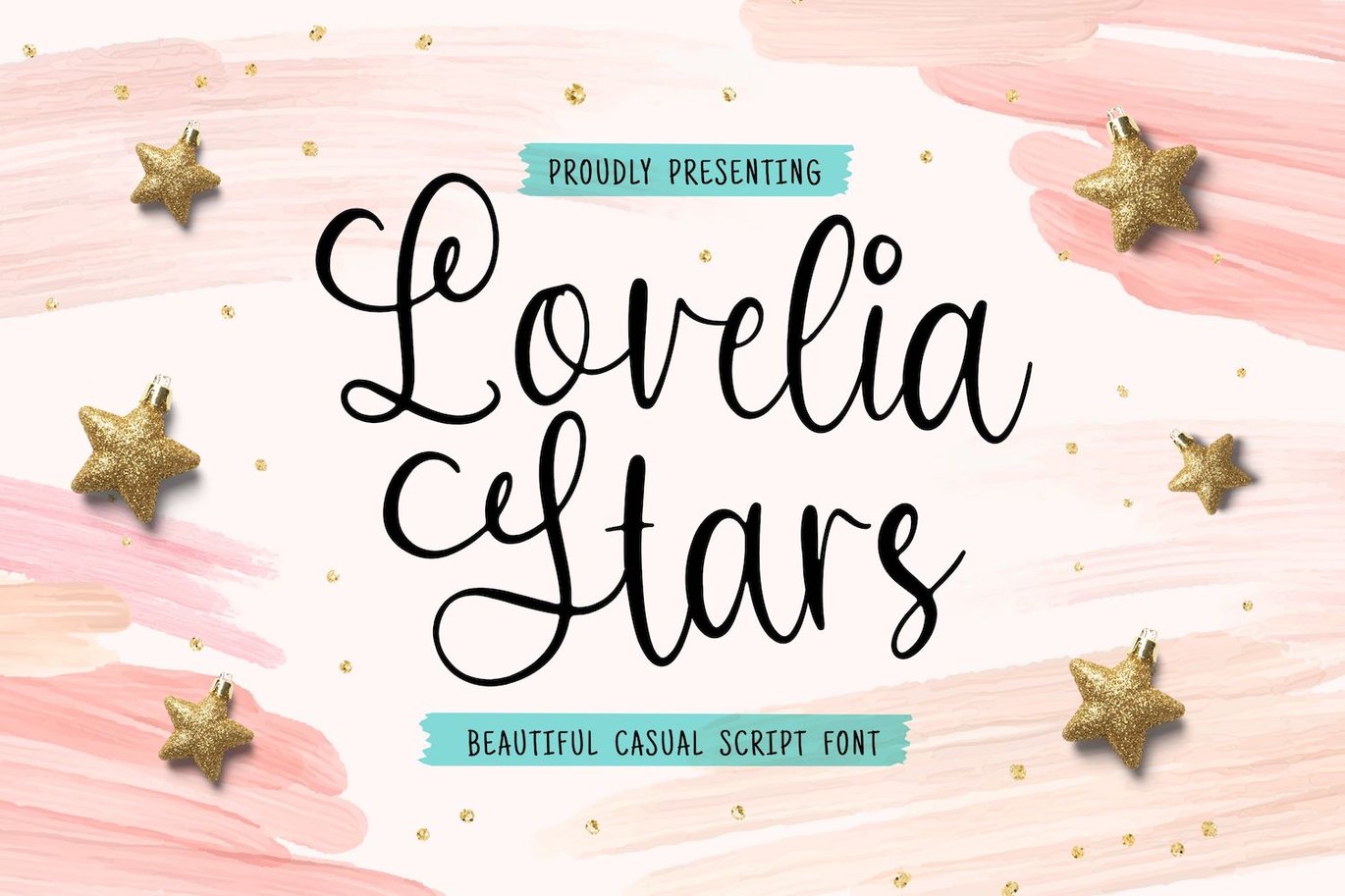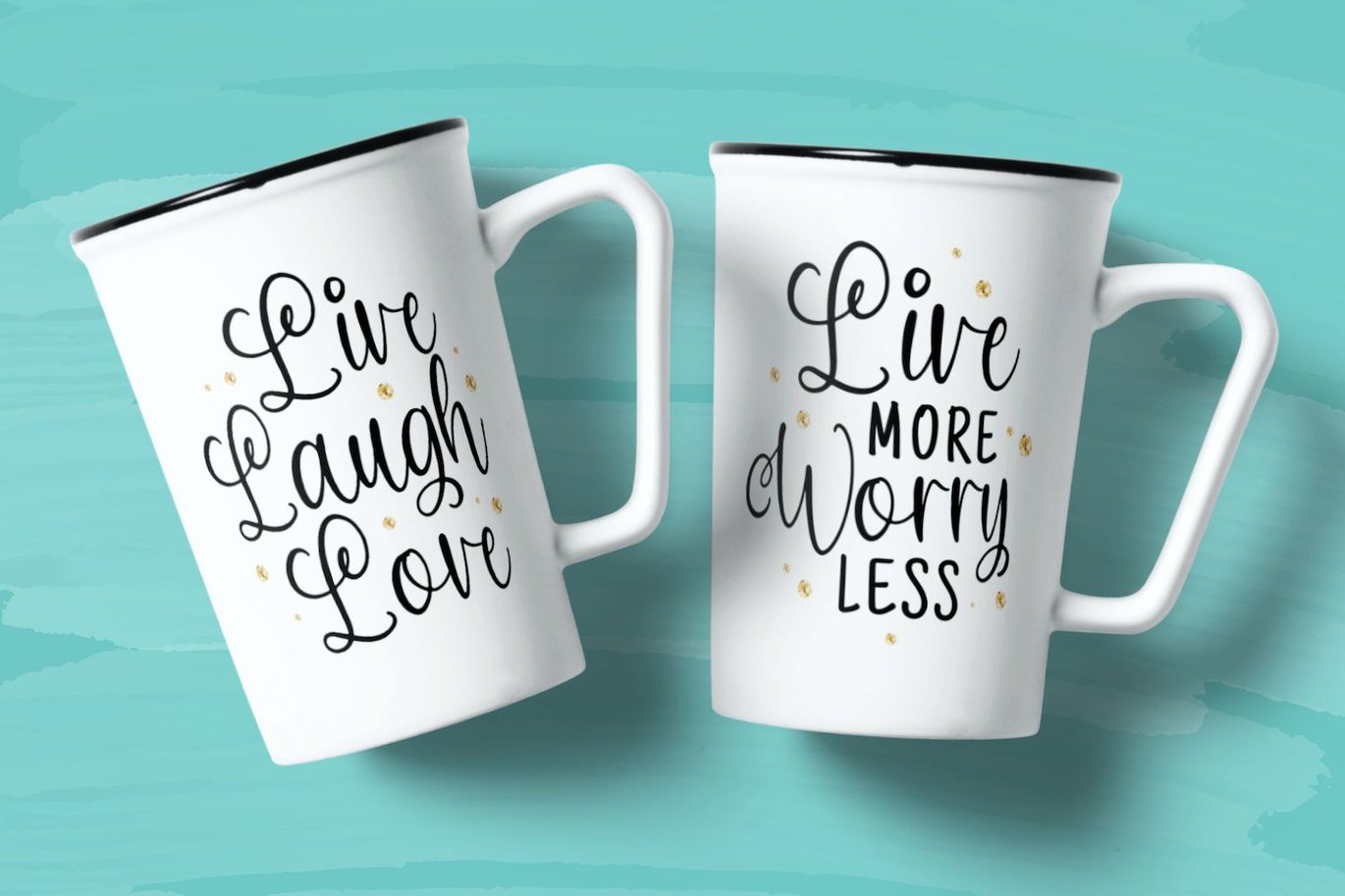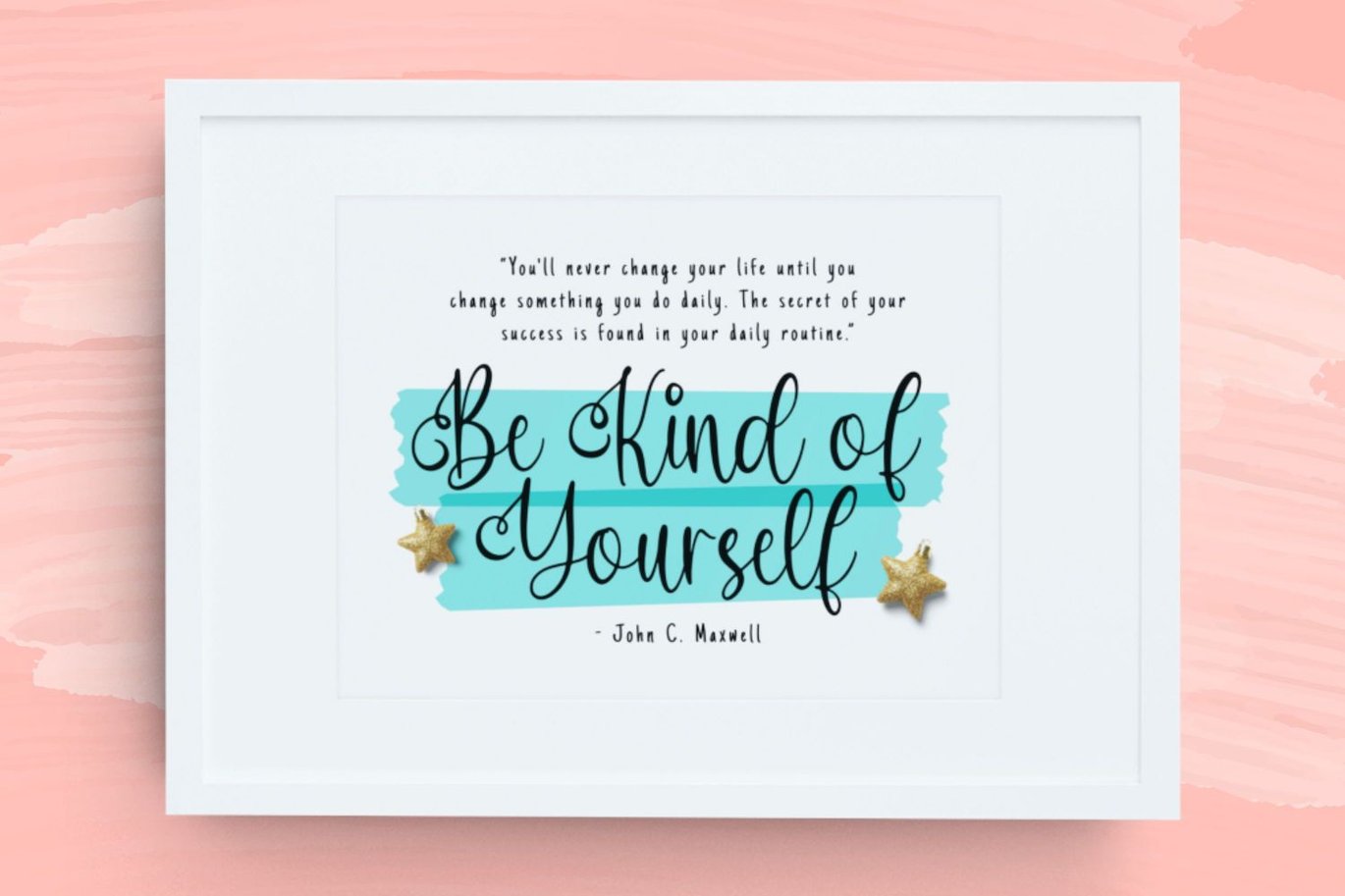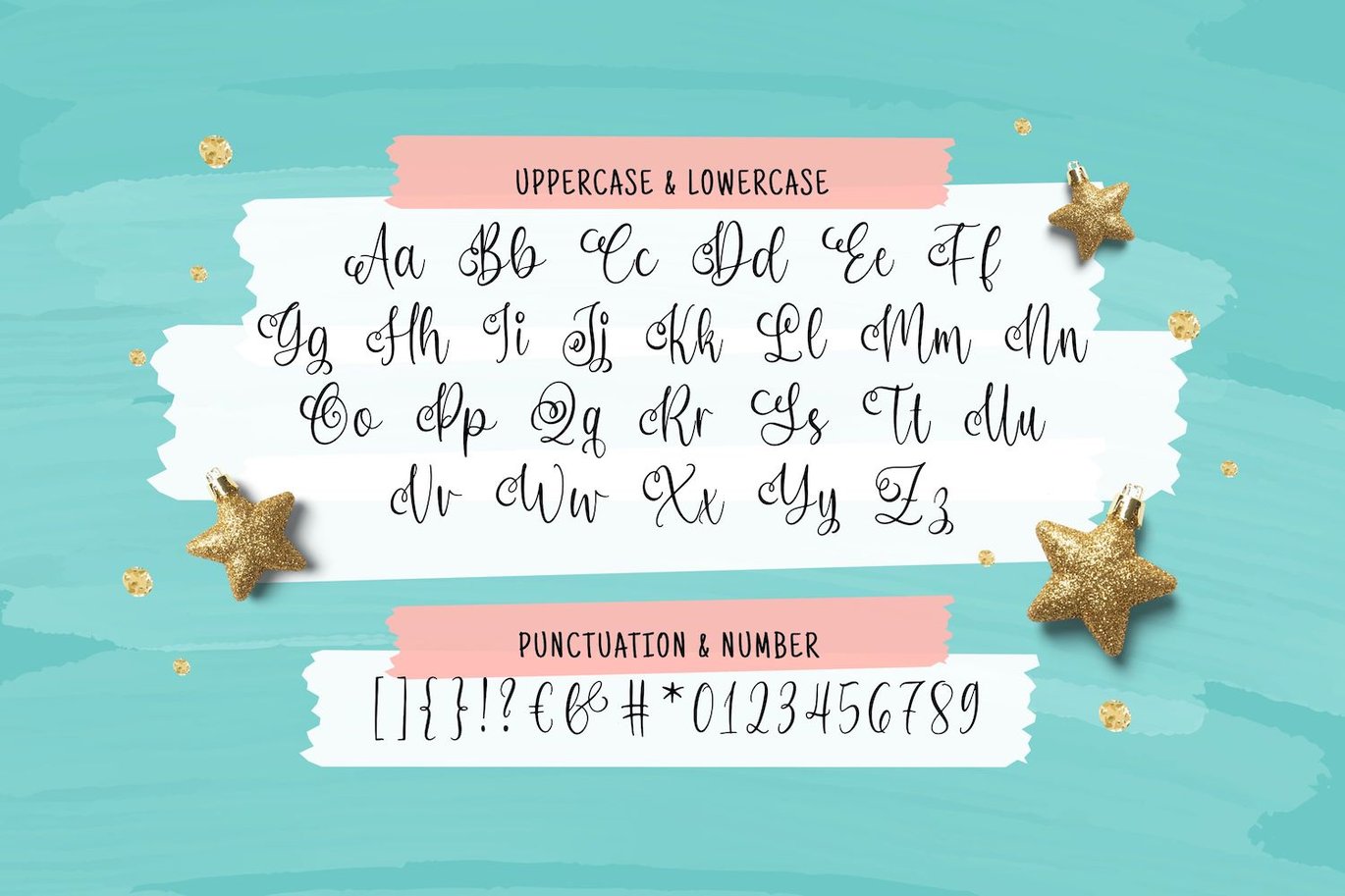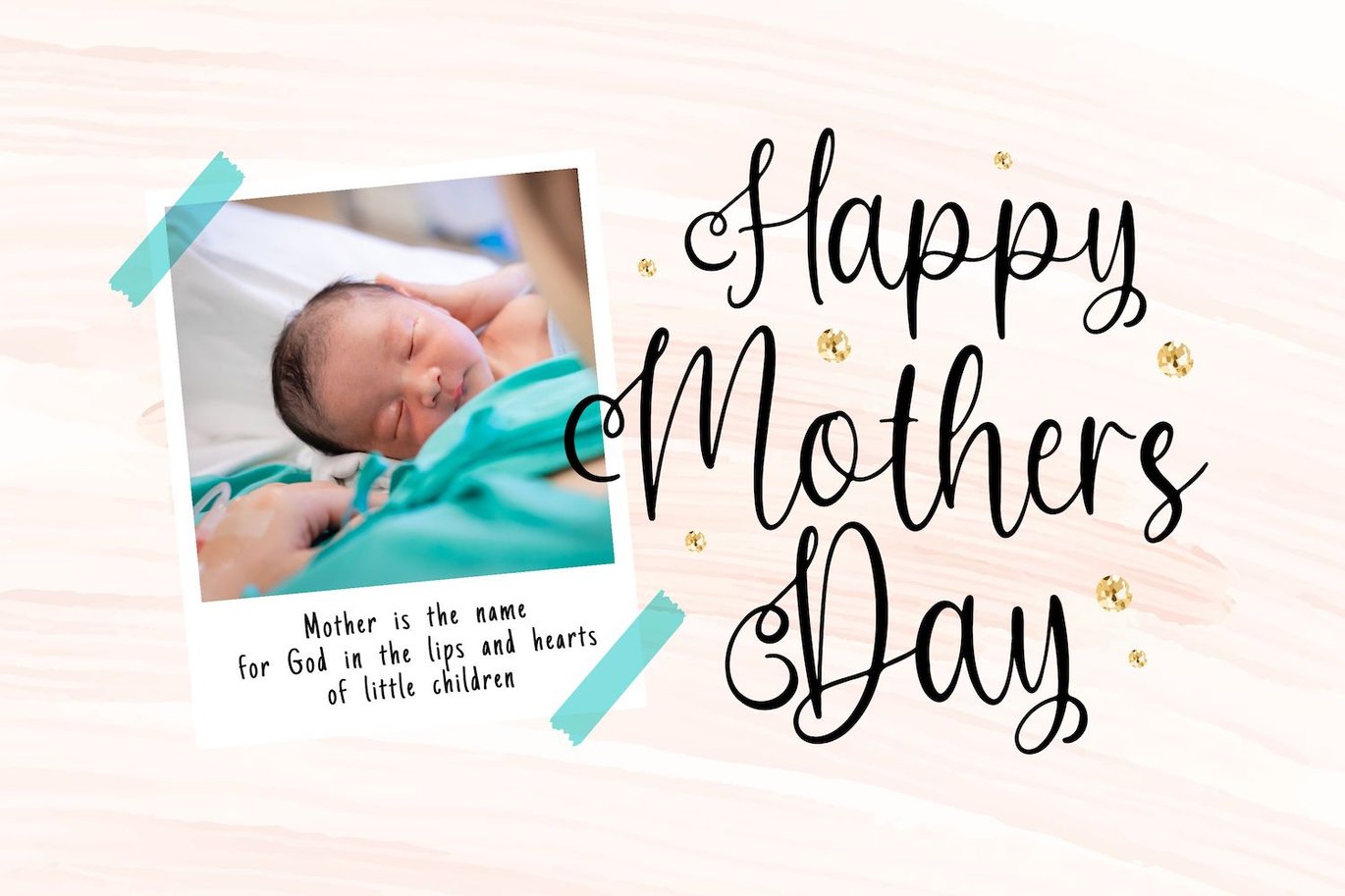
Lovelia Stars Font
This font is suitable in many ways for your latest projects. Perfect for logos & branding, photography, invitations, watermarks, advertisements, product designs, stationery, wedding designs, labels, product packaging, special events and much more.